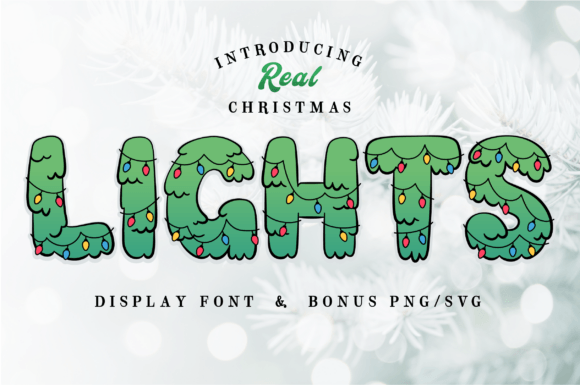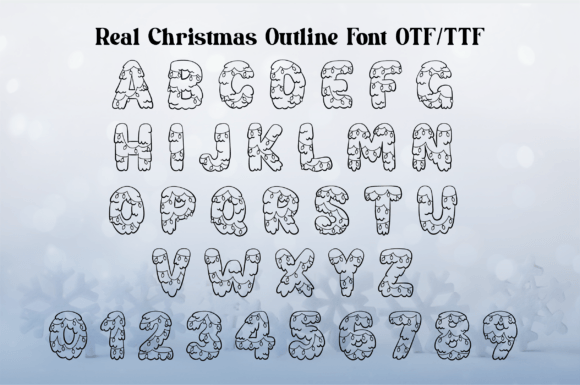
Real Christmas Lights Font
About the Real Christmas Lights Font
Get ready to be inspired by Real Christmas Lights Font, a fresh and dynamic typeface for modern creators. Real Christmas Lights is a fun and festive display font, perfect for holiday projects. It offers both outline and color versions, allowing you to create unique quotes and decorate with just one font. Great for Christmas-themed designs like shirts, mugs, and other creative projects!
This font’s playful, slightly quirky style works best in headlines, short slogans, and festive packaging designs. It’s ideal for projects aiming for a cheerful, approachable feel, such as Christmas cards, children’s books, or branding for a bakery or toy store. Avoid using it for body text or lengthy paragraphs; its decorative nature makes it less legible at smaller sizes.
Real Christmas Lights pairs well with clean sans-serif fonts like Open Sans or Lato for a balanced contrast, or with a more playful script font like Great Vibes to enhance its festive mood. A simple, geometric sans-serif would also create a modern, sophisticated pairing.
The font’s overall personality is undeniably cheerful and festive, making it a strong choice for projects requiring a fun, lighthearted aesthetic. Its bold outlines allow for impactful visual communication, while the color versions offer additional versatility.
Real Christmas Lights Font Usage Examples
Real Christmas Lights Font Example